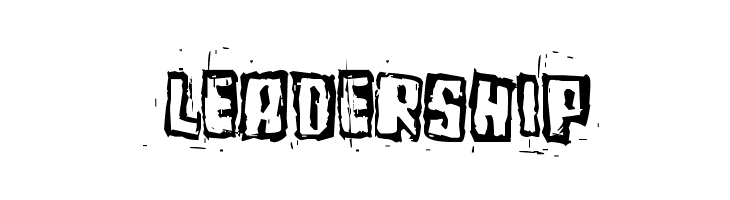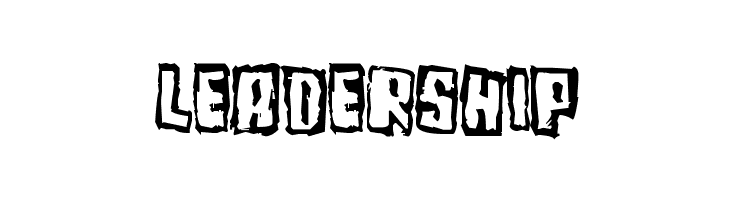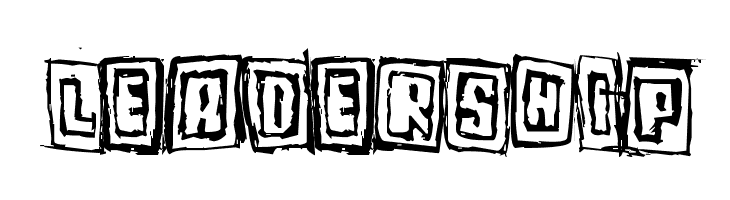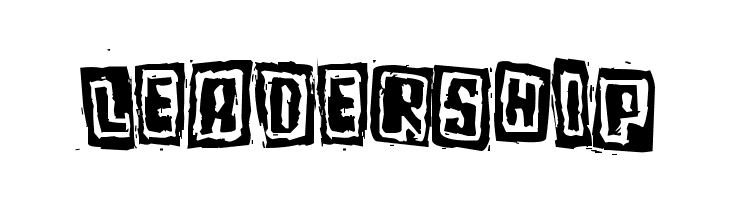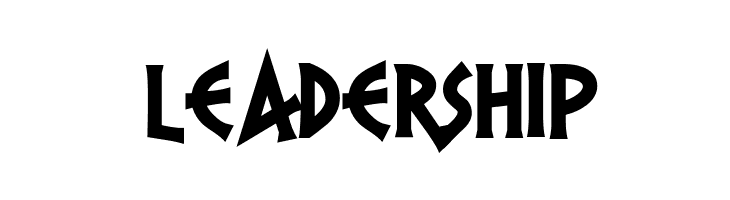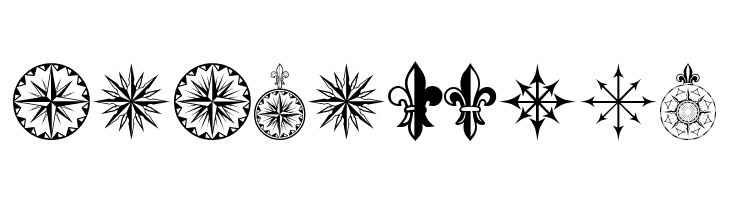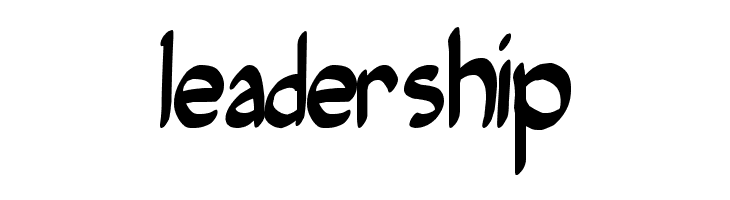
A bold, hand-drawn font with a sketch-like, three-dimensional appearance.
A chaotic, grunge-style font with splattered, energetic brushstrokes.
A bold, playful handwritten font with a dynamic and informal style.
A bold, playful handwritten font with thick, rounded strokes.
A bold, geometric font with a modern and striking design.
A bold, geometric font with a modern, industrial feel.
A modern, geometric sans-serif font with clean lines and uniform stroke width.
A modern, geometric sans-serif font with clean lines and consistent stroke width.
A modern, geometric sans-serif font with clean lines and uniform stroke width.
A bold, geometric font with a modern, industrial style and distinctive cut-out sections.
A bold, geometric stencil typeface with a modern, industrial aesthetic.
A bold, stencil-like font with high contrast and industrial appeal.
A modern, geometric font with clean lines and a minimalist design.
A modern, geometric stencil font with clean lines and sharp angles.
A modern, geometric sans-serif font with clean lines and consistent stroke width.
A modern, geometric stencil font with a semi-bold weight and industrial feel.
A bold, distressed font with a cut-out, ransom note style.
A bold, geometric font with a modern and structured design.
A bold, geometric font with high contrast and strong visual impact.
A modern, geometric sans-serif font with a clean and minimalistic design.
A modern, geometric sans-serif font with a clean and structured appearance.
A modern geometric sans-serif font with clean lines and a minimalist aesthetic.
A bold, geometric sans-serif font with a modern and structured design.
A bold, comic-style font with playful and expressive symbols.
A playful, cartoon-style font with bold, expressive symbols and icons.
A bold, distressed font with a hand-drawn, grungy style.
A bold, distressed font with a rugged, graffiti-like style.
A bold, distressed font with a rugged, hand-drawn appearance.
A bold, distressed font with a rugged, stamp-like appearance.
A bold, angular font with sharp lines and a geometric style.
Ornamental dingbat set with compass roses and fleur-de-lis motifs.
A bold, rune-inspired font with sharp, angular edges.